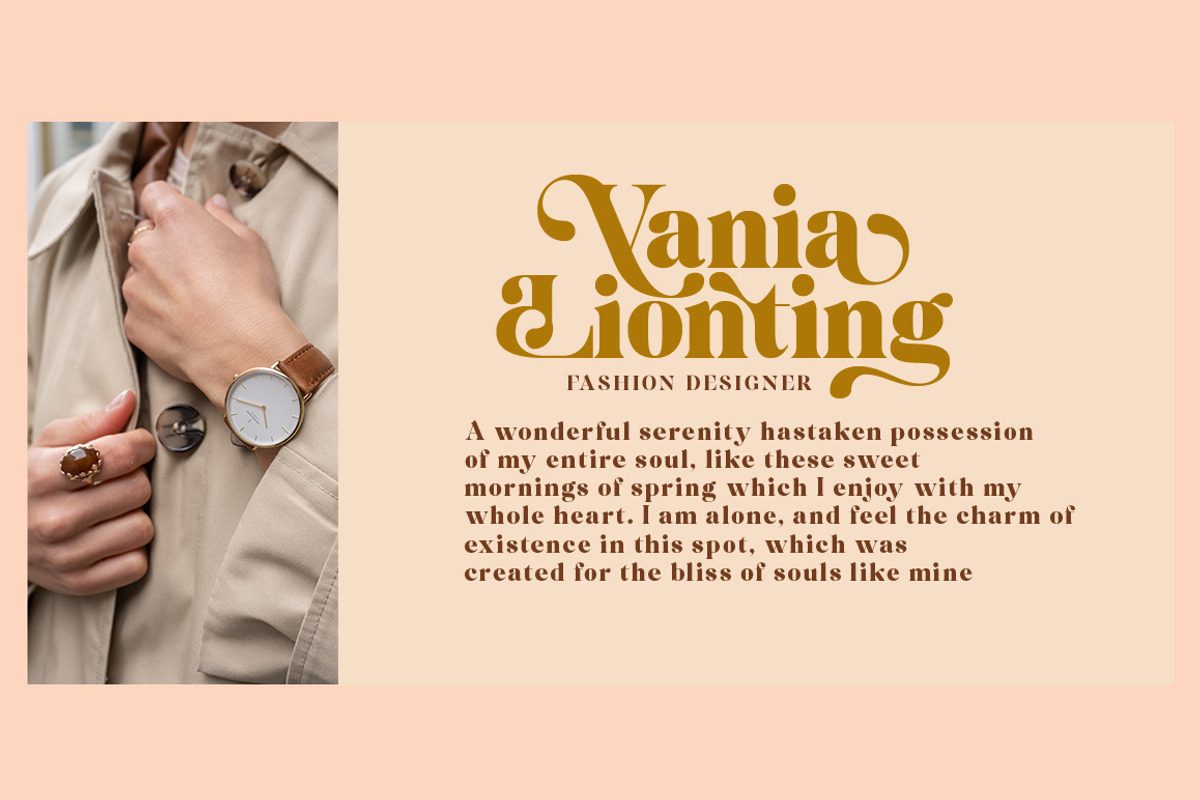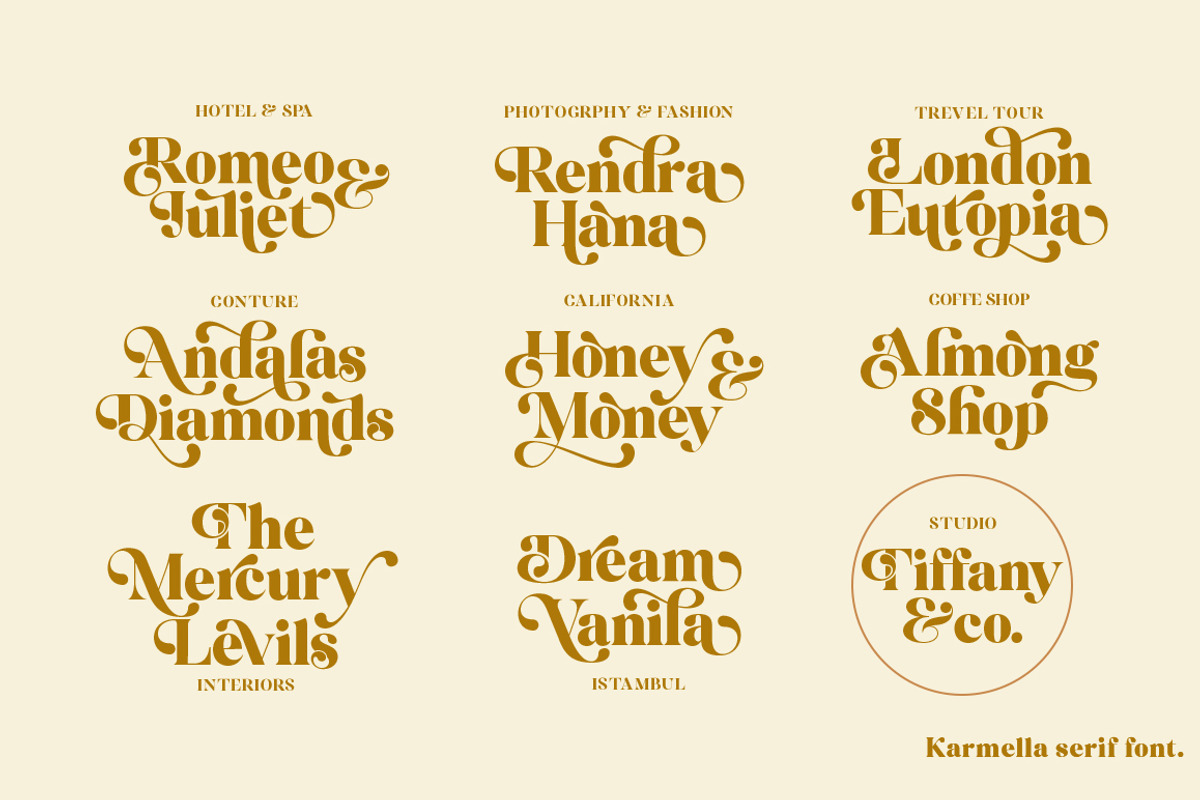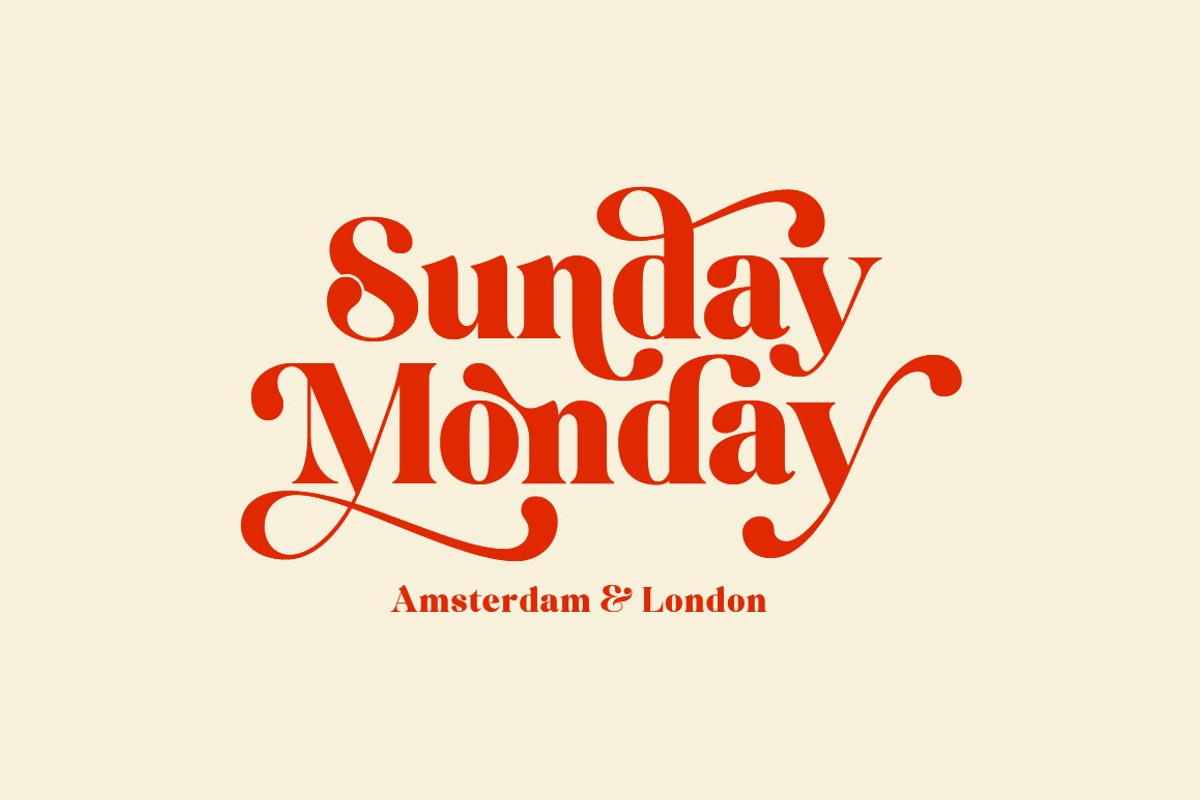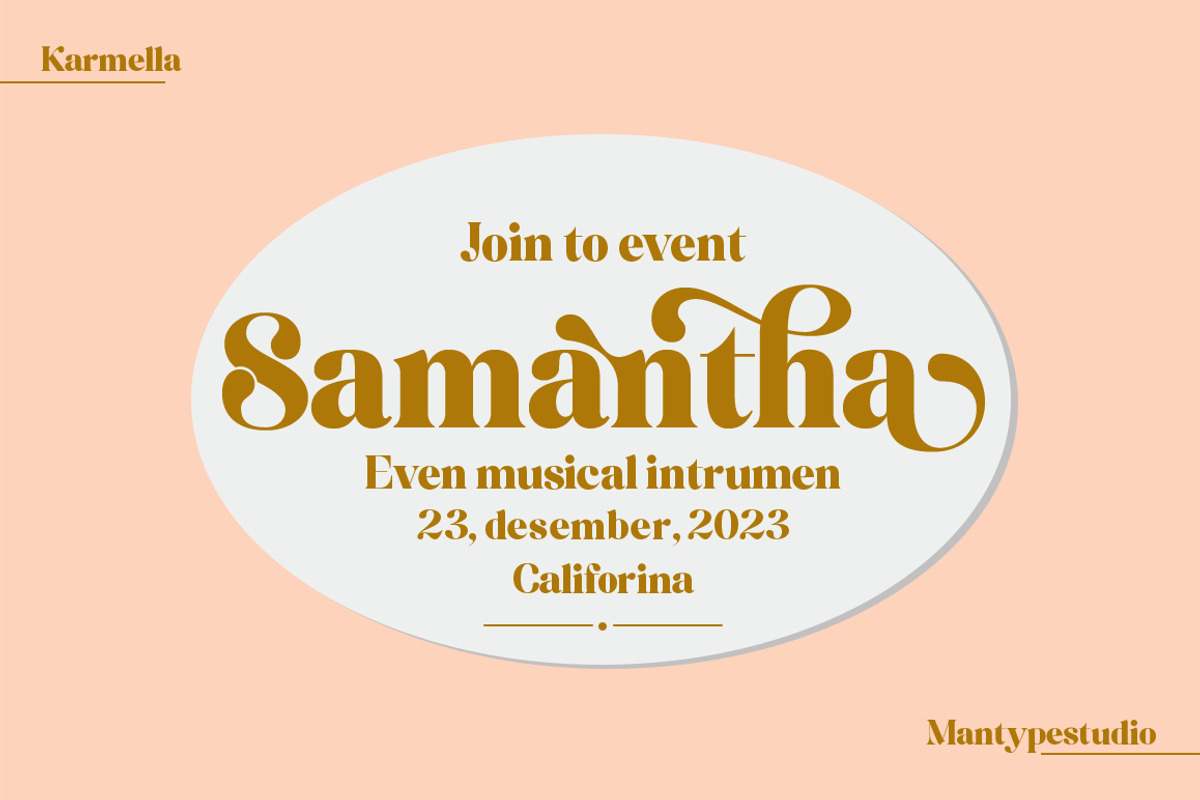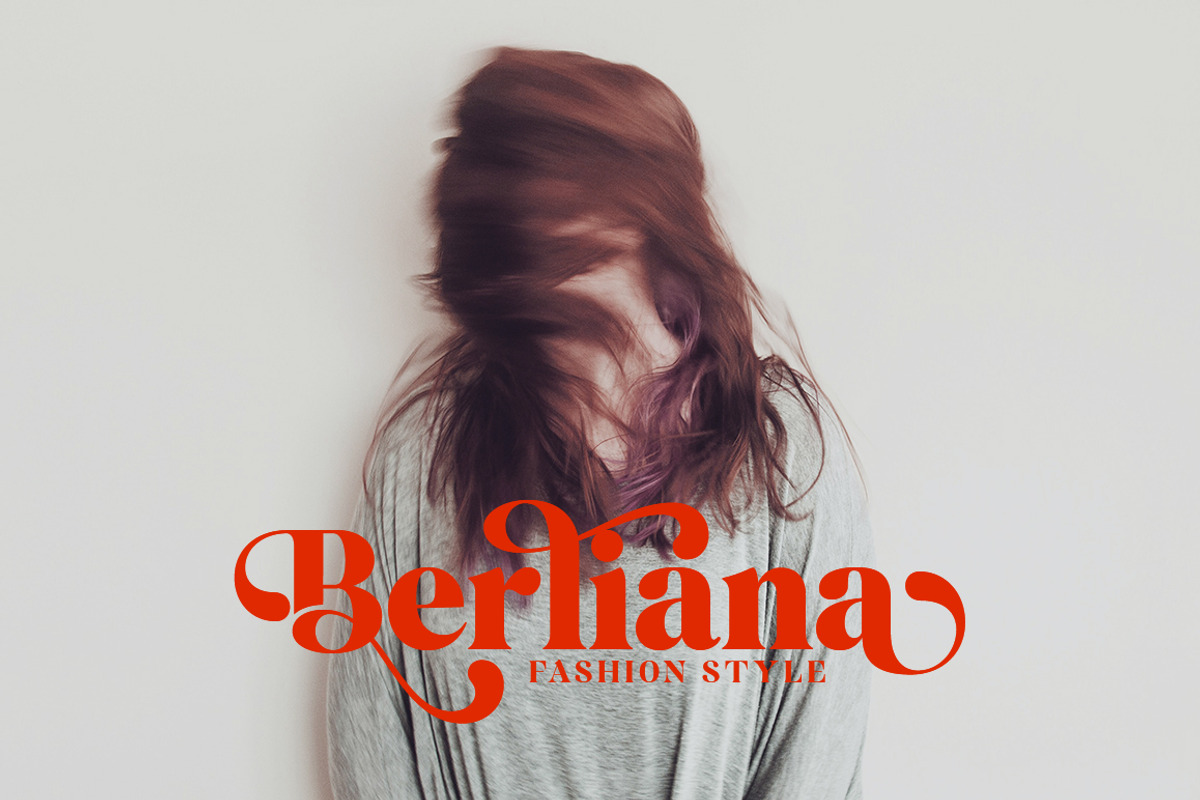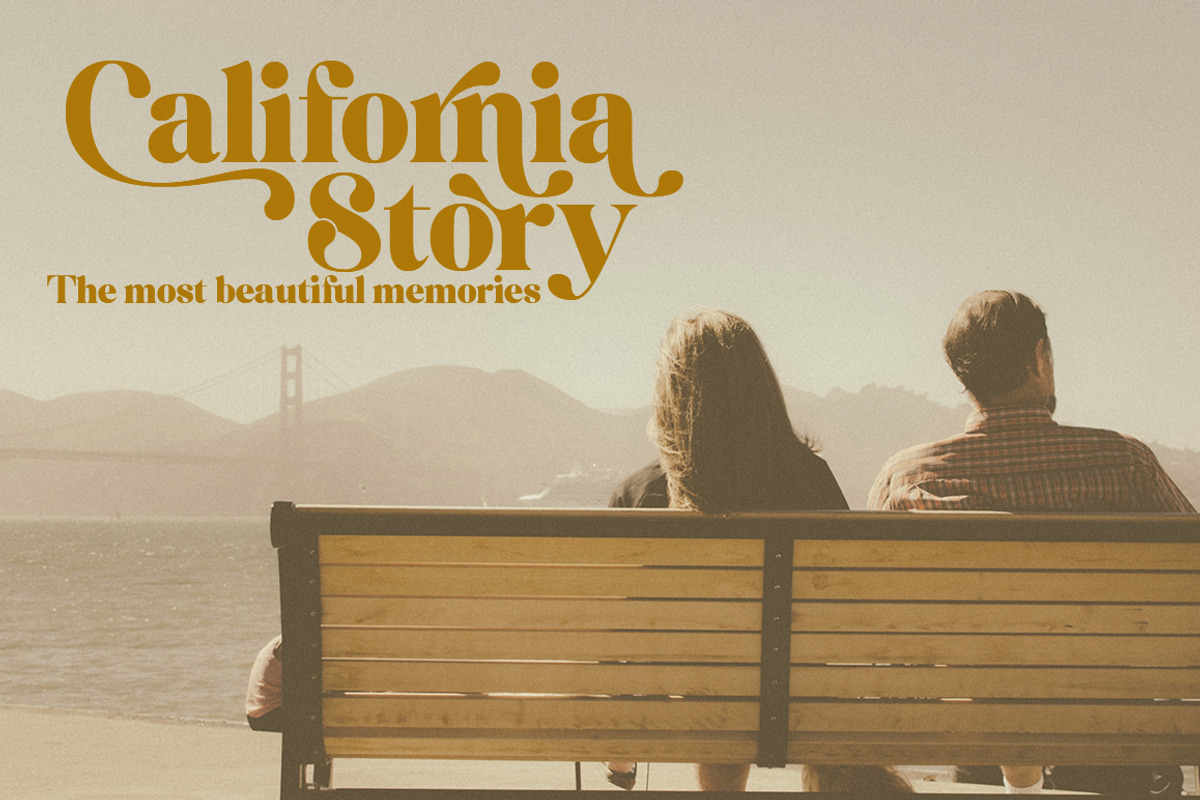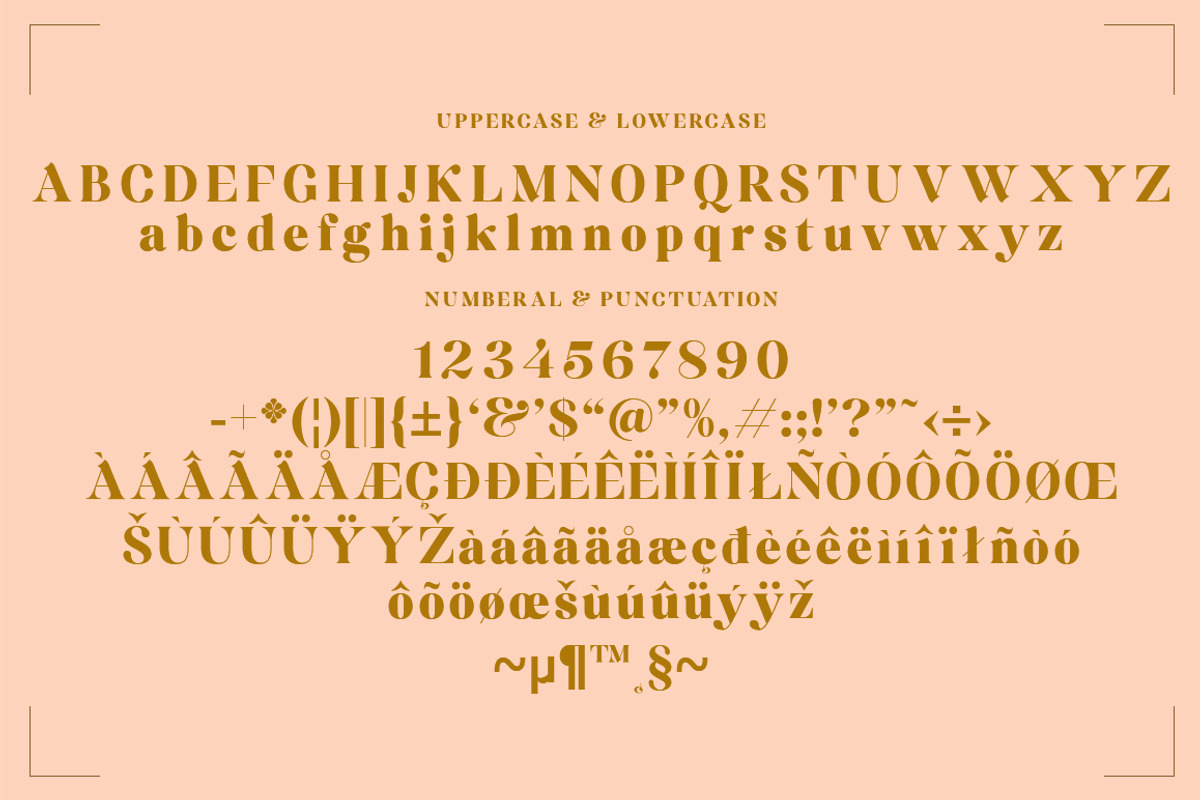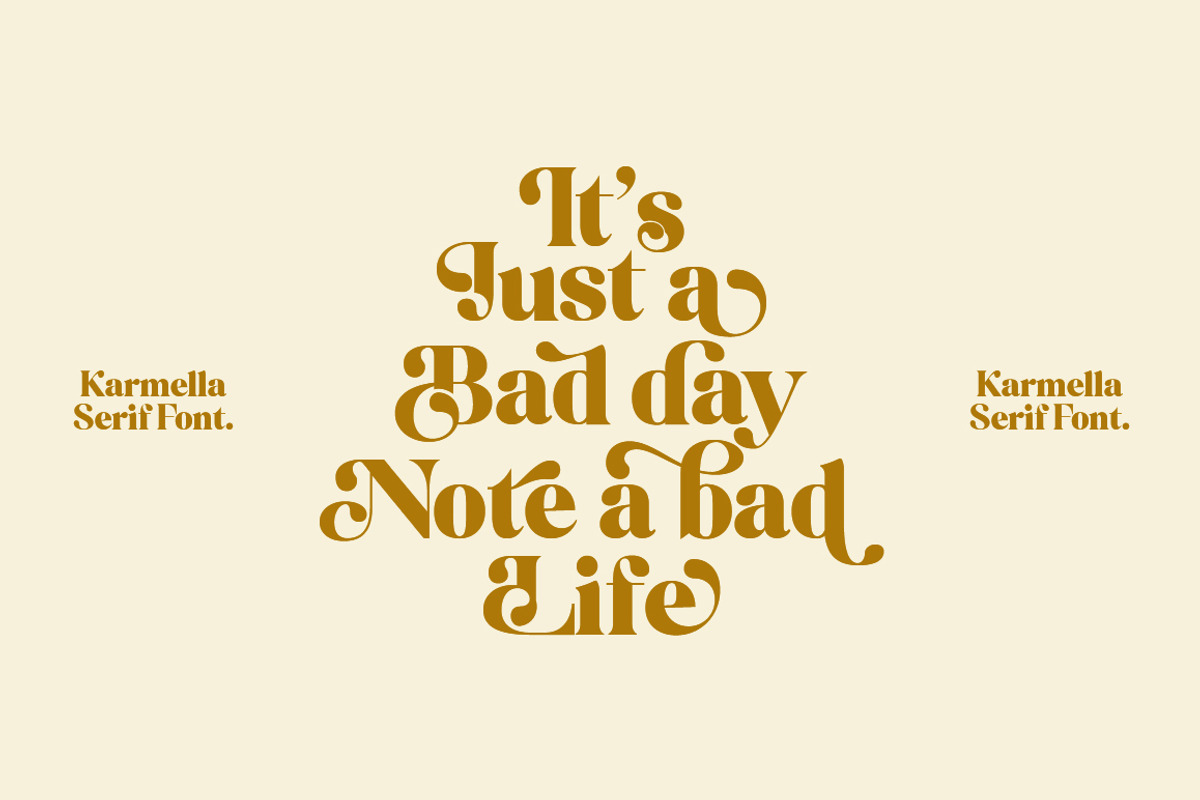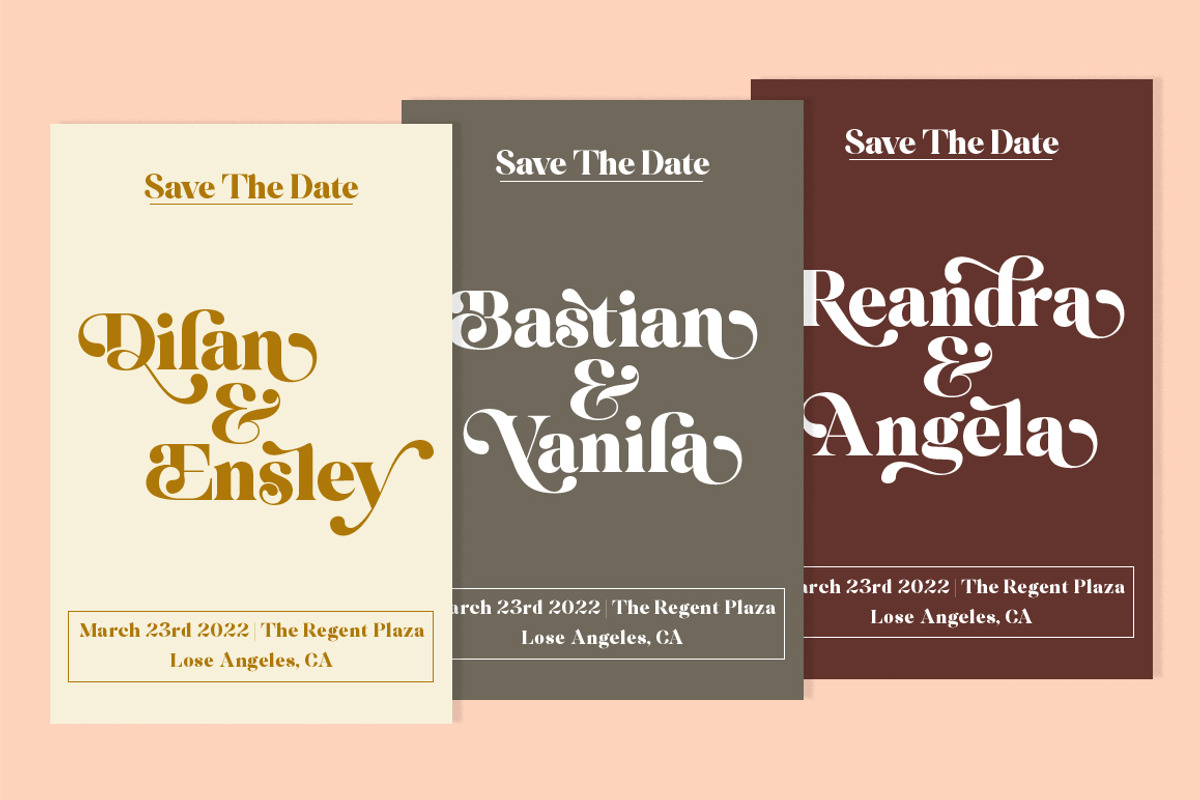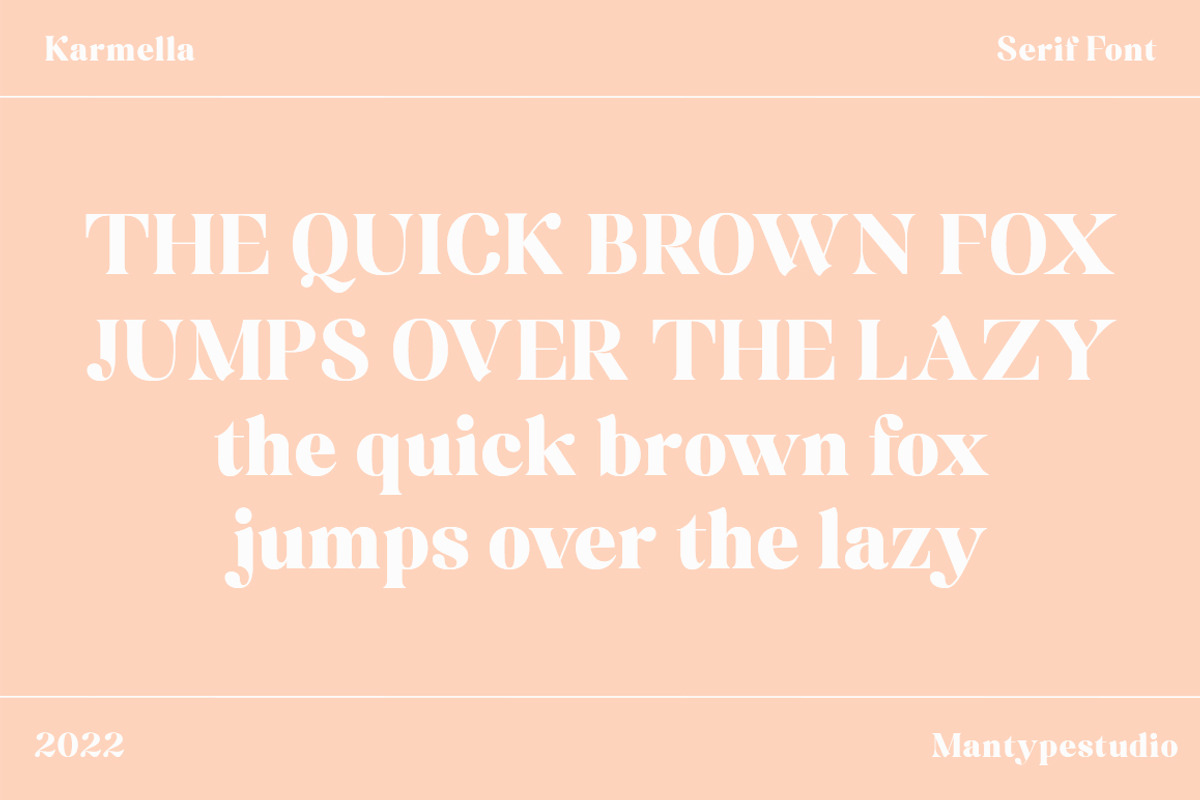
Karmella
Karmella a classy serif font with a handful of curvy ligatures.
Think Wild Mango with a twist! This font is both bold and elegant.. modern yet vintage.. either way, it is sure to bring attention to your brand and designs!
Karmella includes alternate letters (letters with the curvy swashes). These letters are embedded into the font file and easily accessible in programs such as photoshop and illustrator. You can access these in more basic design programs but you will need to use your character map or font book